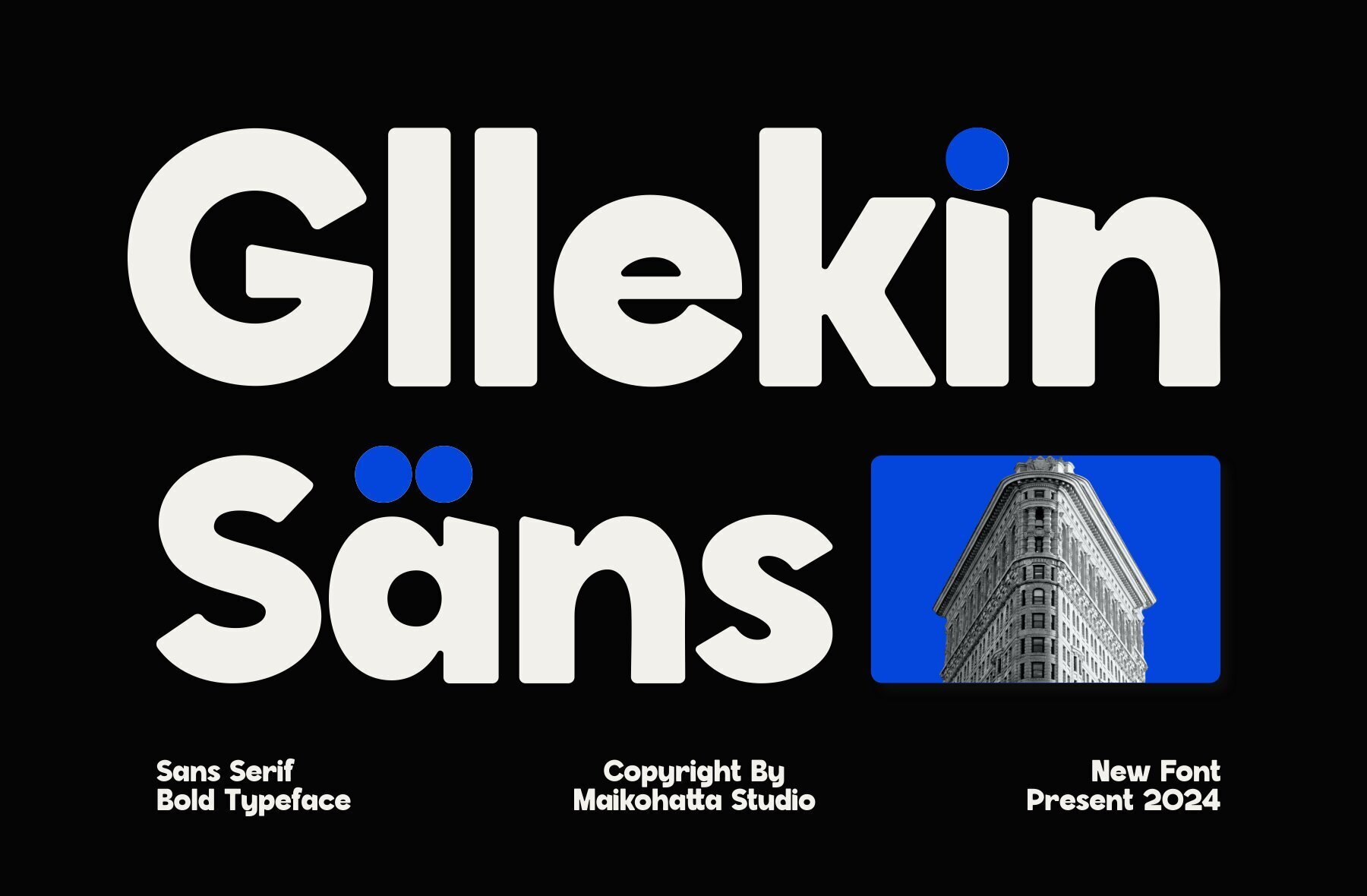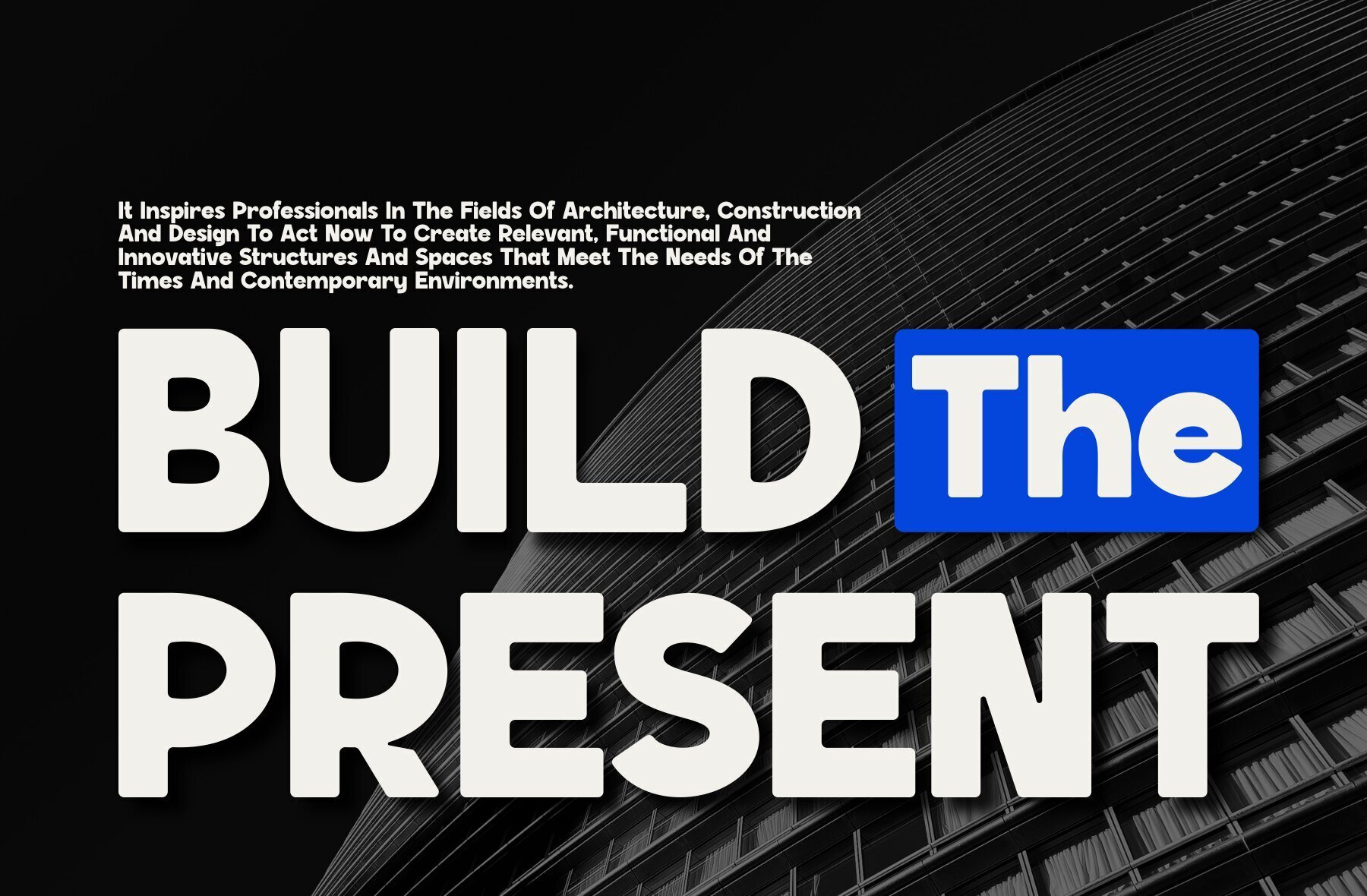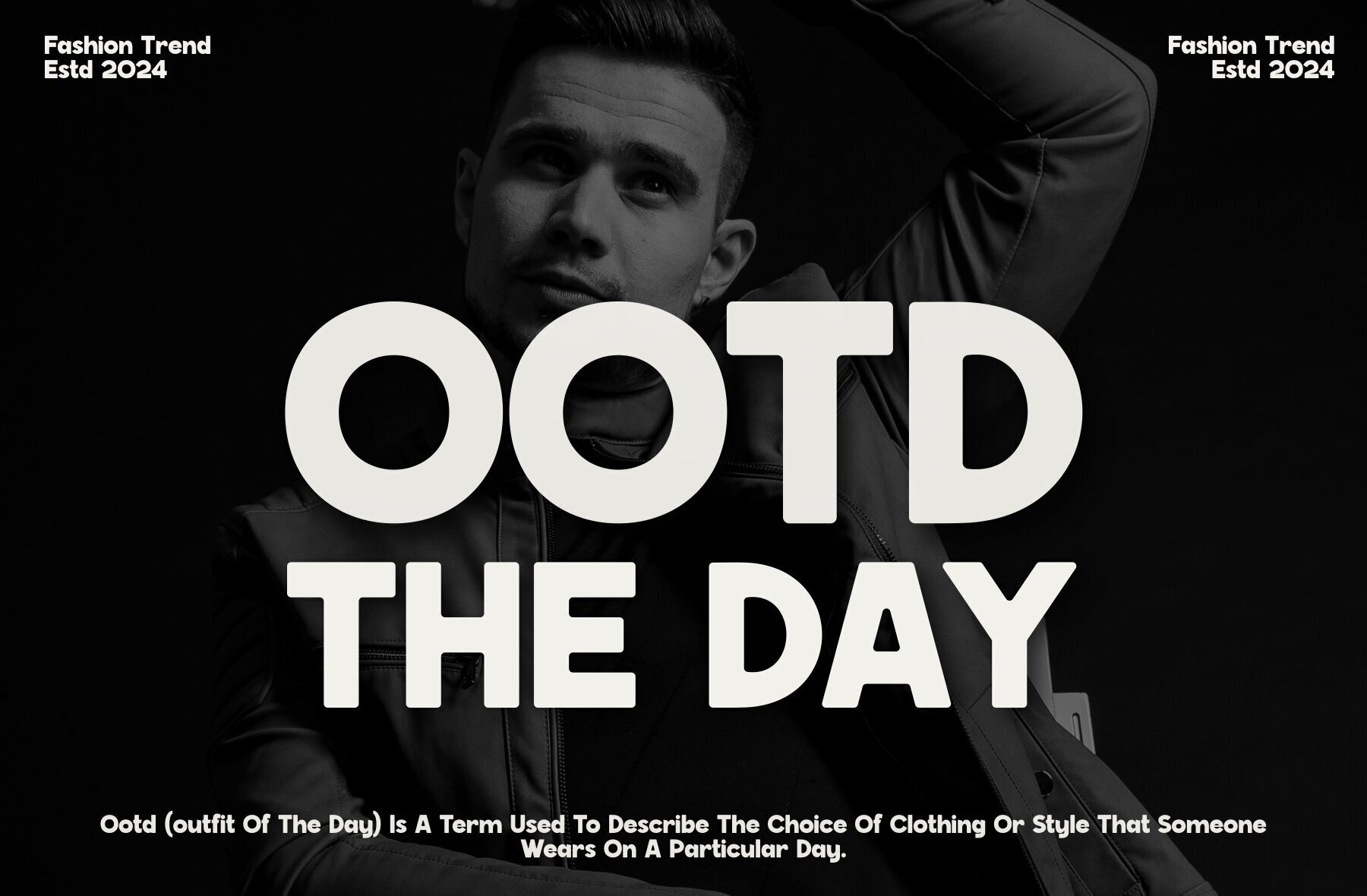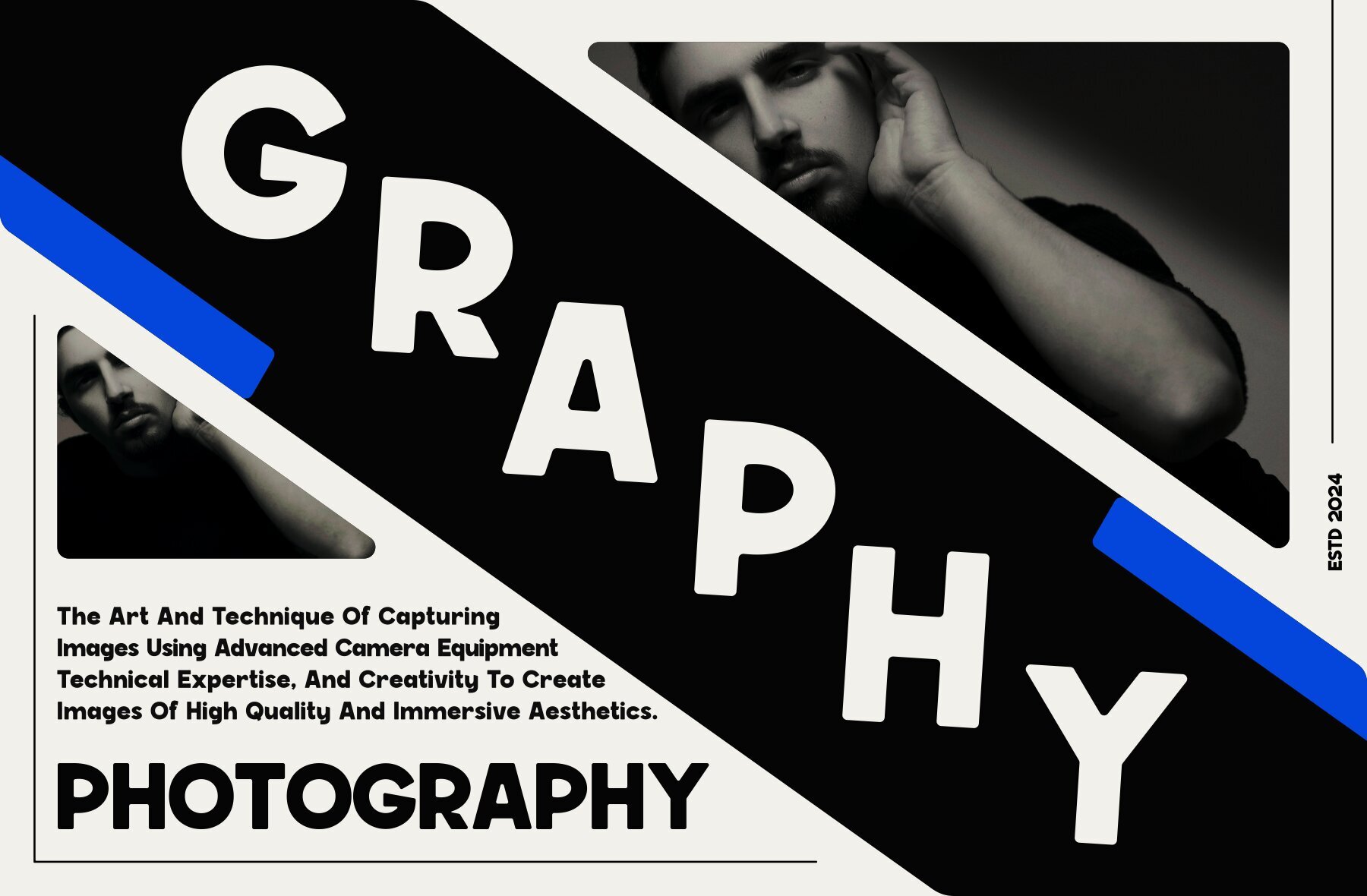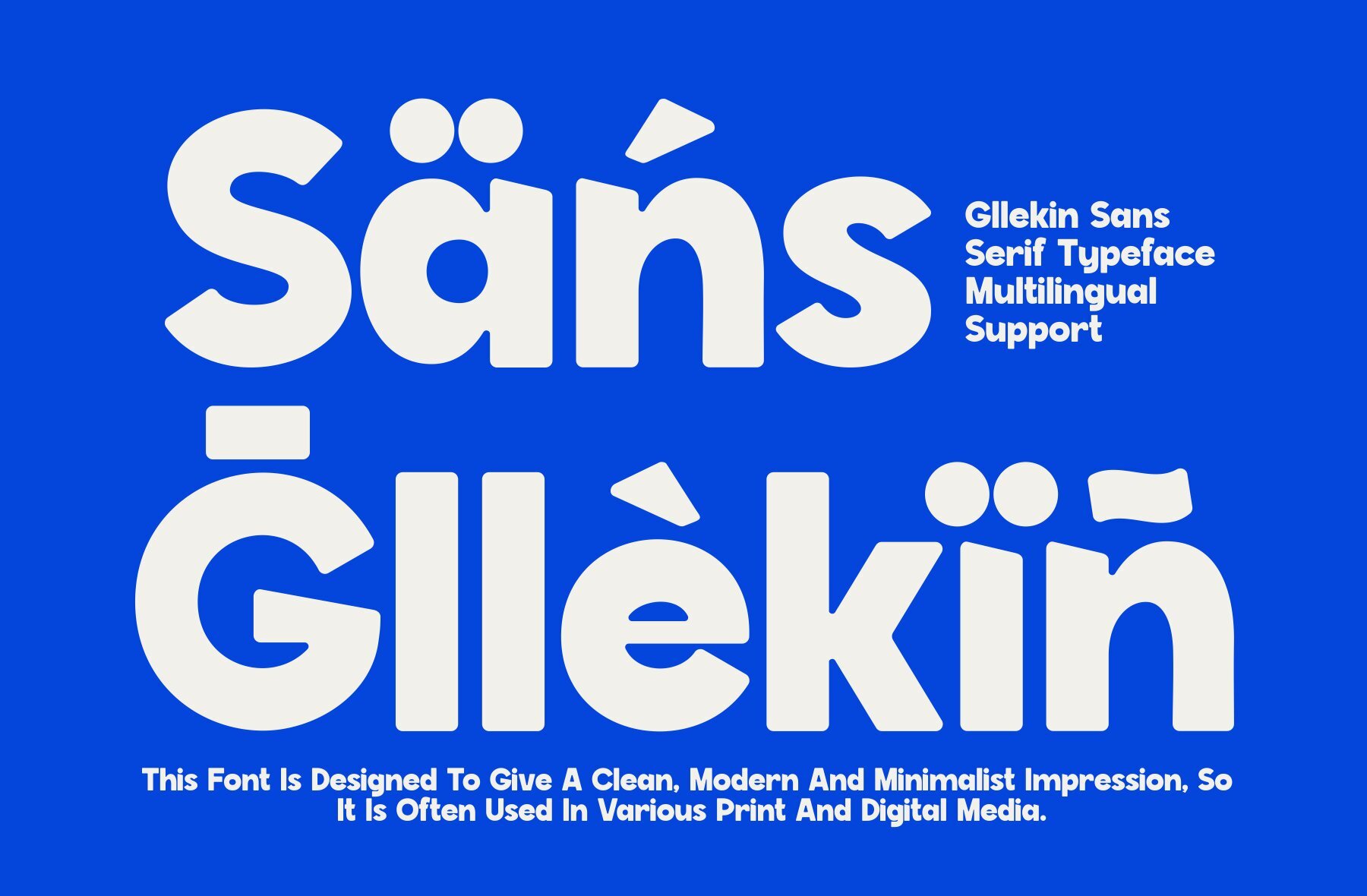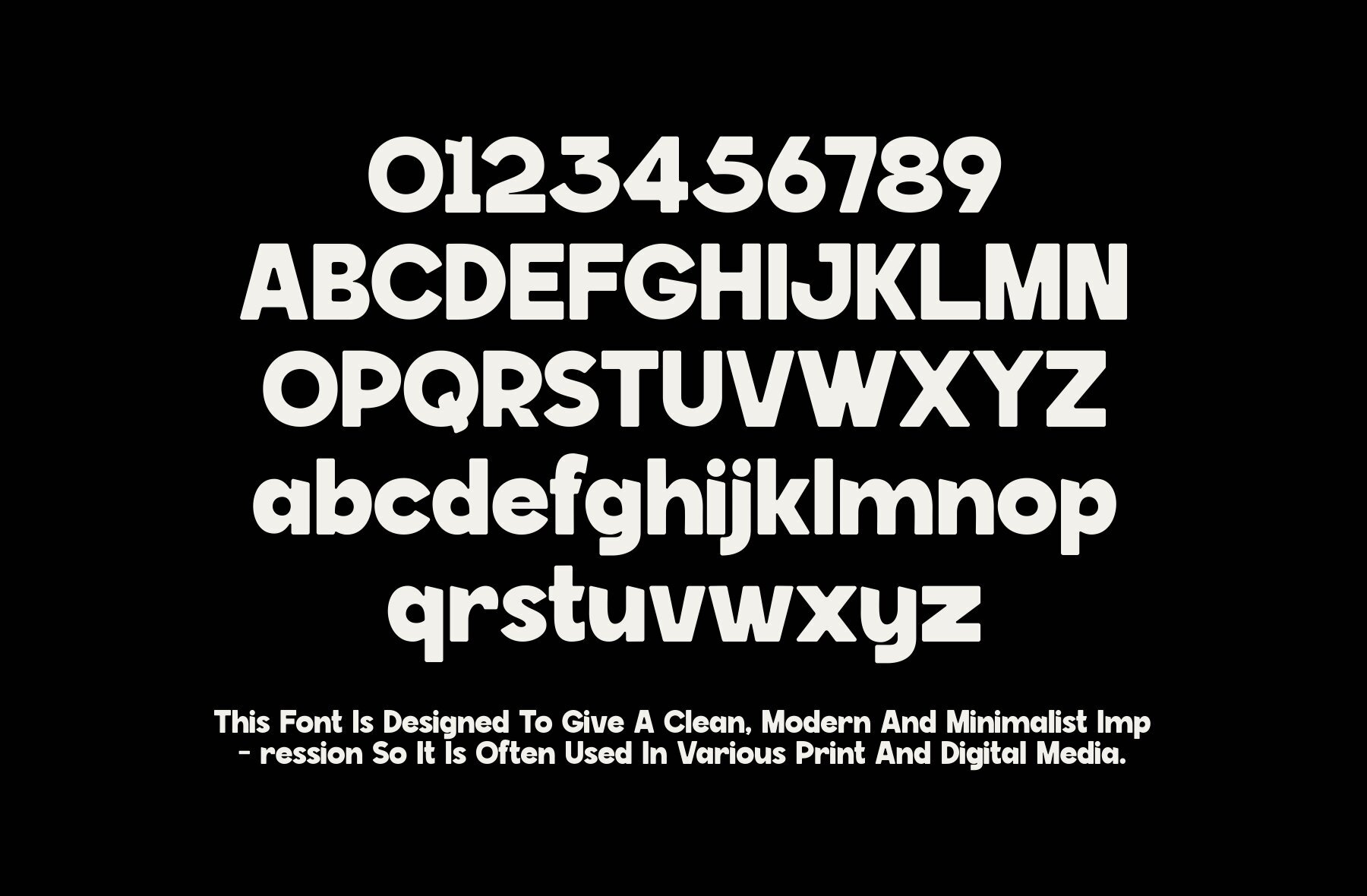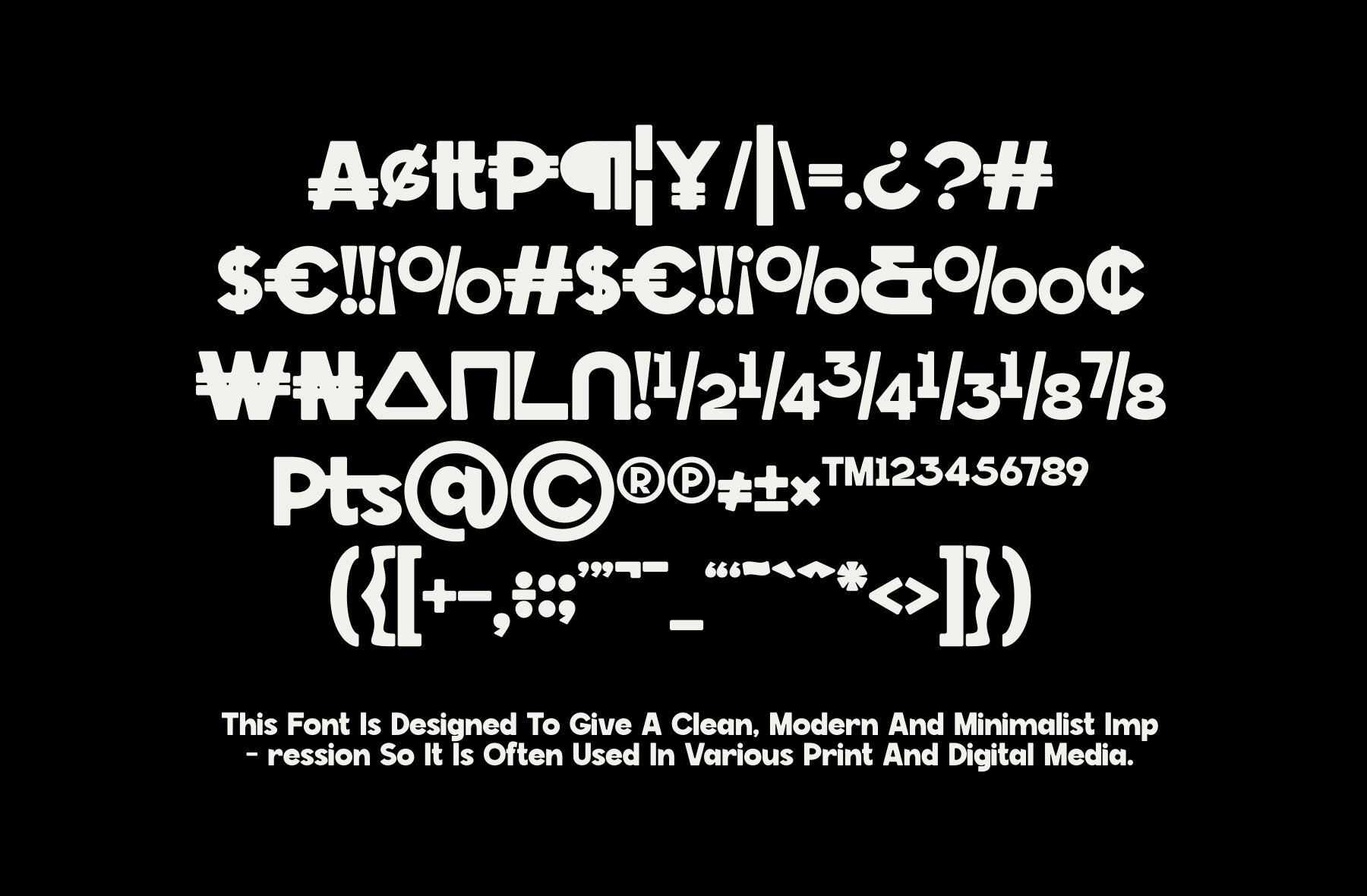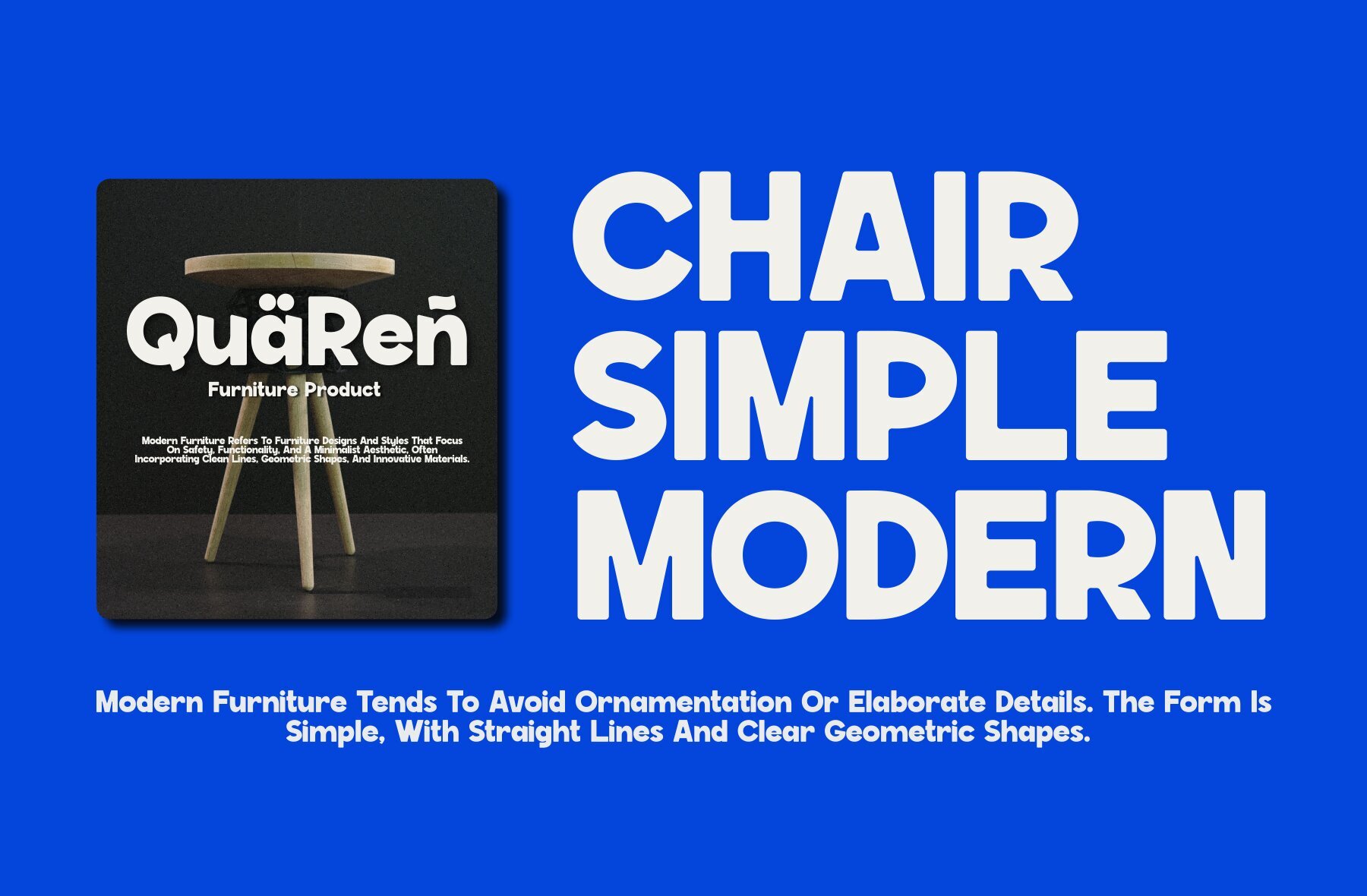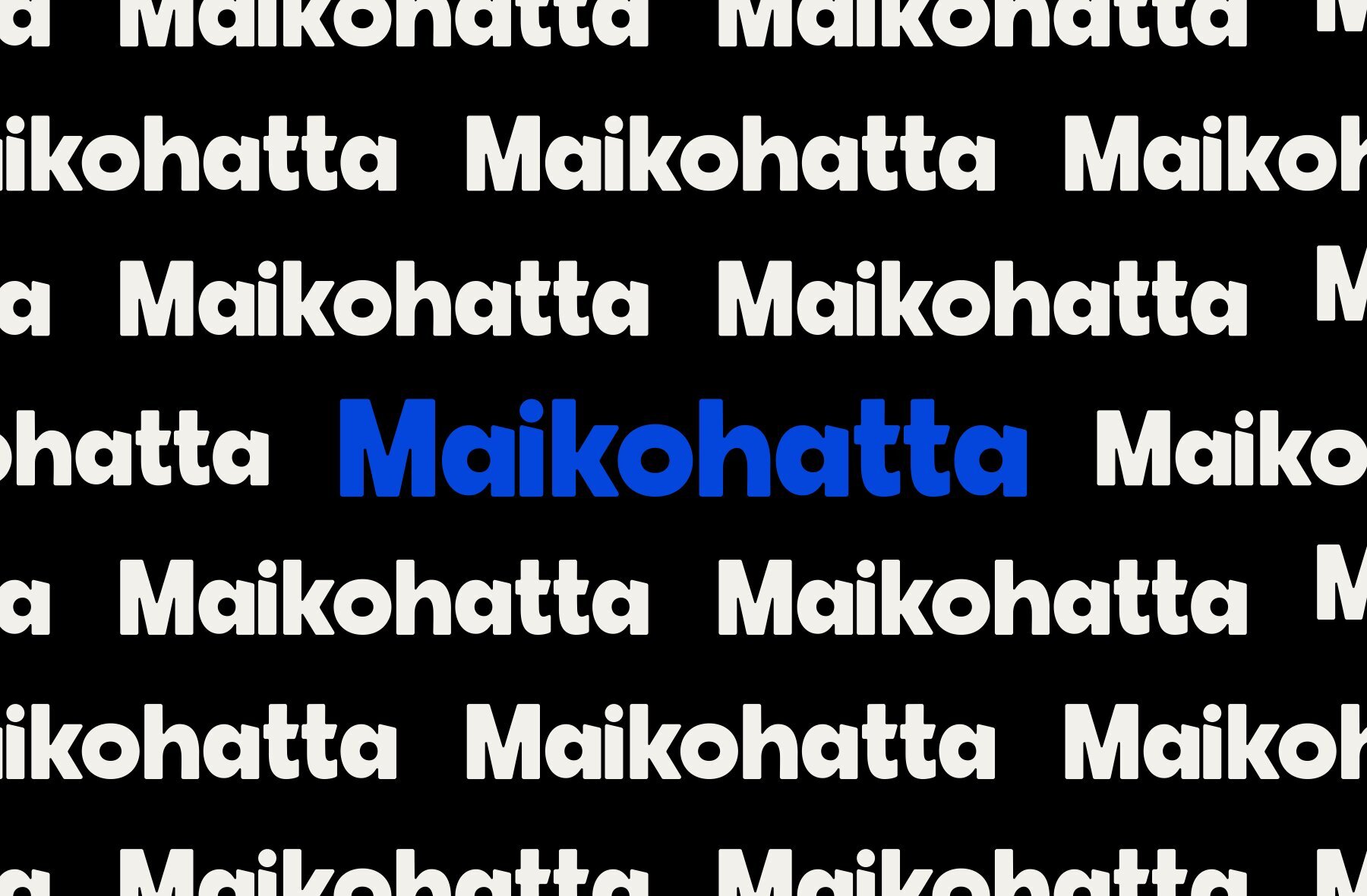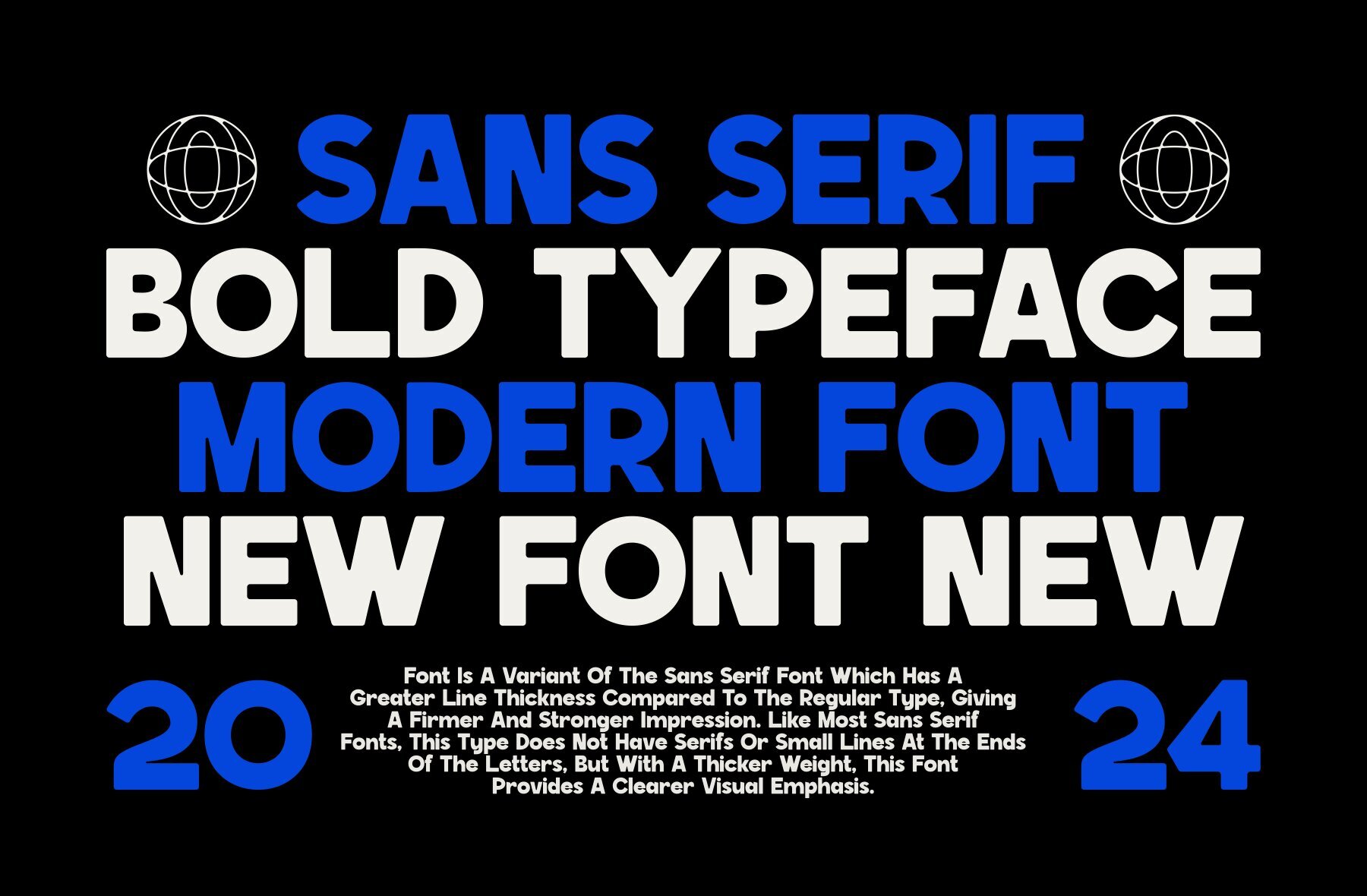
Gllekin Font
Gllekin
This bold geometric sans-serif font exudes strength and modern minimalism, making it perfect for impactful headlines and sleek branding projects. Its clean, blocky letterforms are ideal for conveying confidence and clarity in digital and print designs.